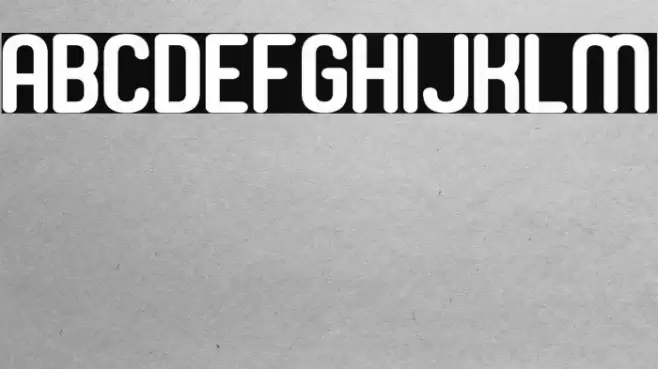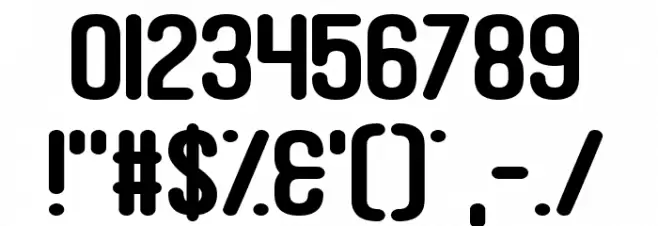
Juicebox Font
Juicebox Description
This font features a bold, rounded style with a modern and playful aesthetic. The characters are uniformly thick, creating a strong visual impact. The rounded edges give it a friendly and approachable feel, making it suitable for various creative applications. The uppercase and lowercase letters maintain consistent proportions, ensuring readability. Numbers and special characters are designed with the same rounded and bold characteristics, providing a cohesive look across all elements. This font is ideal for projects that require a contemporary and energetic vibe.
A bold, rounded font with a modern and playful style from Uncategorized fonts.